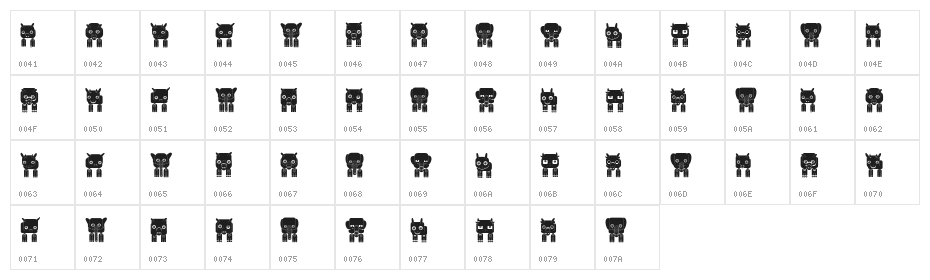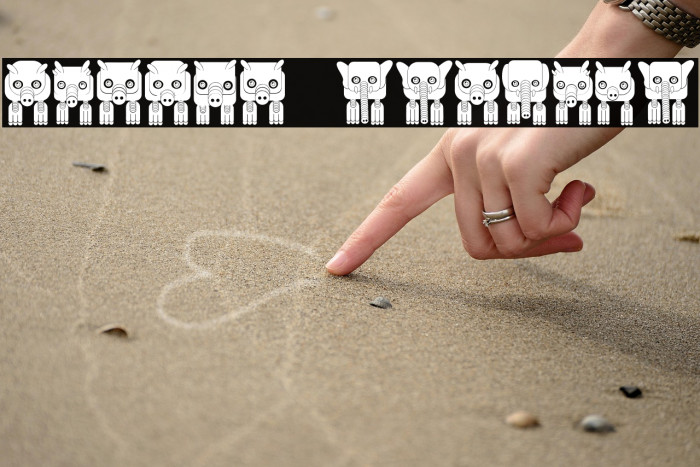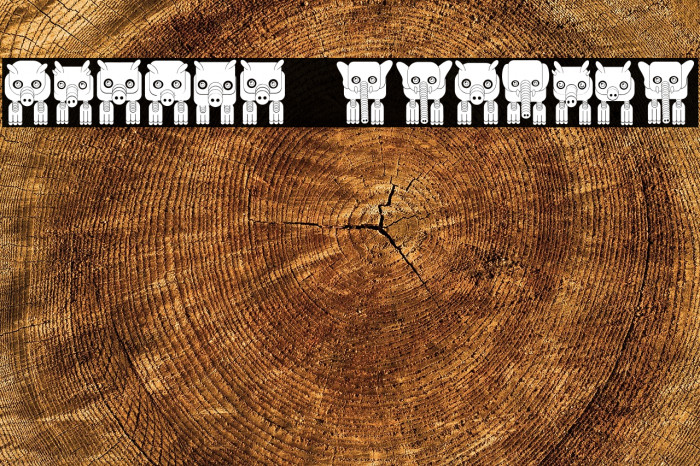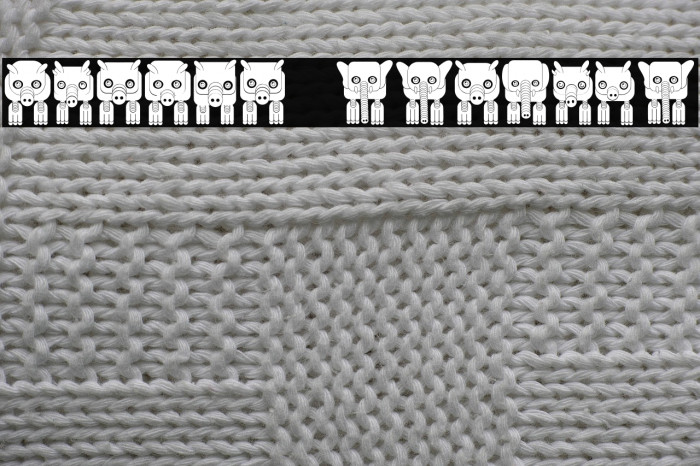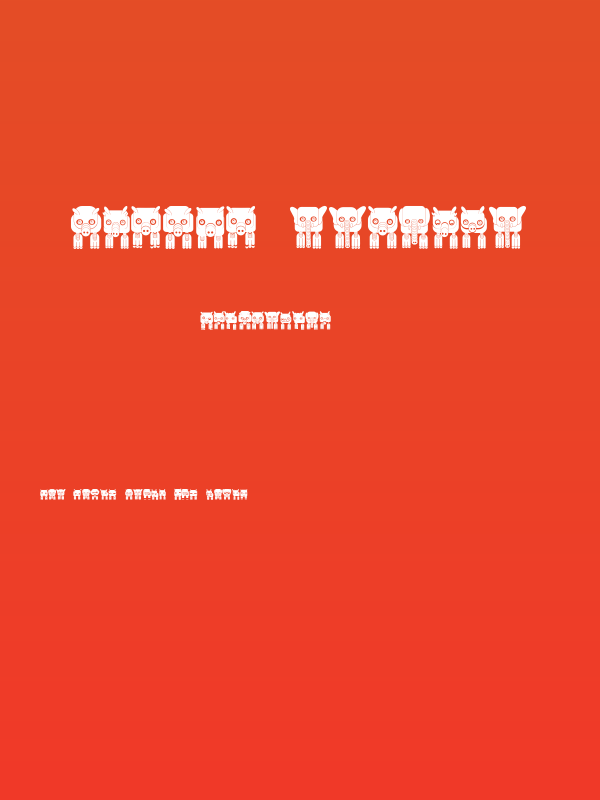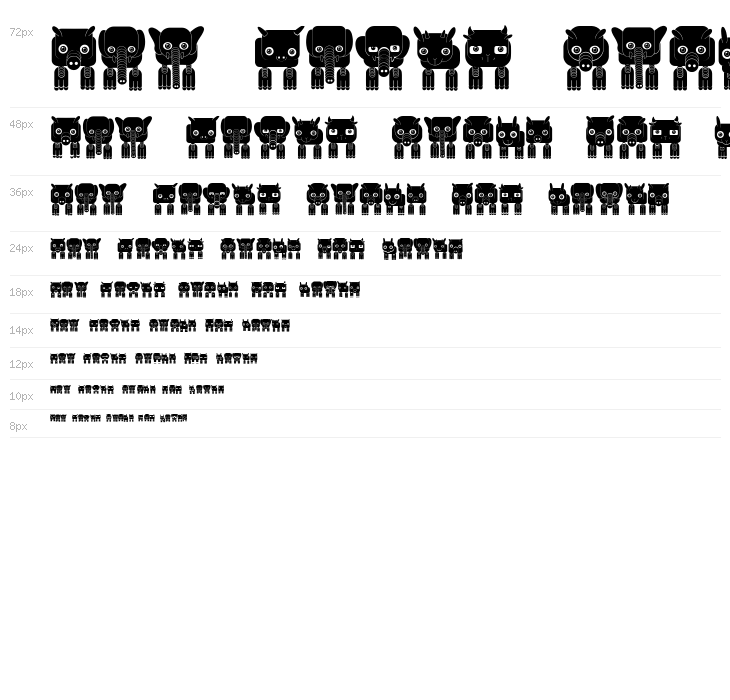
Bytost Regular Font
Bytost Regular Description
This font is a playful and whimsical design, characterized by its unique representation of letters as small, cartoon-like creatures. Each character is depicted with a distinct personality, featuring bold outlines and filled-in shapes that create a strong visual impact. The font is highly decorative, with each letter resembling a small, stylized animal or robot, complete with eyes and limbs. This imaginative approach makes it stand out as a display font, perfect for creative projects that require a touch of fun and originality. The characters are evenly spaced, ensuring readability despite their intricate designs.
| Overall Style | Whimsical, Playful, Creative |
| Proposed Projects | Ideal for children's books, playful branding, creative posters, and unique invitations. |